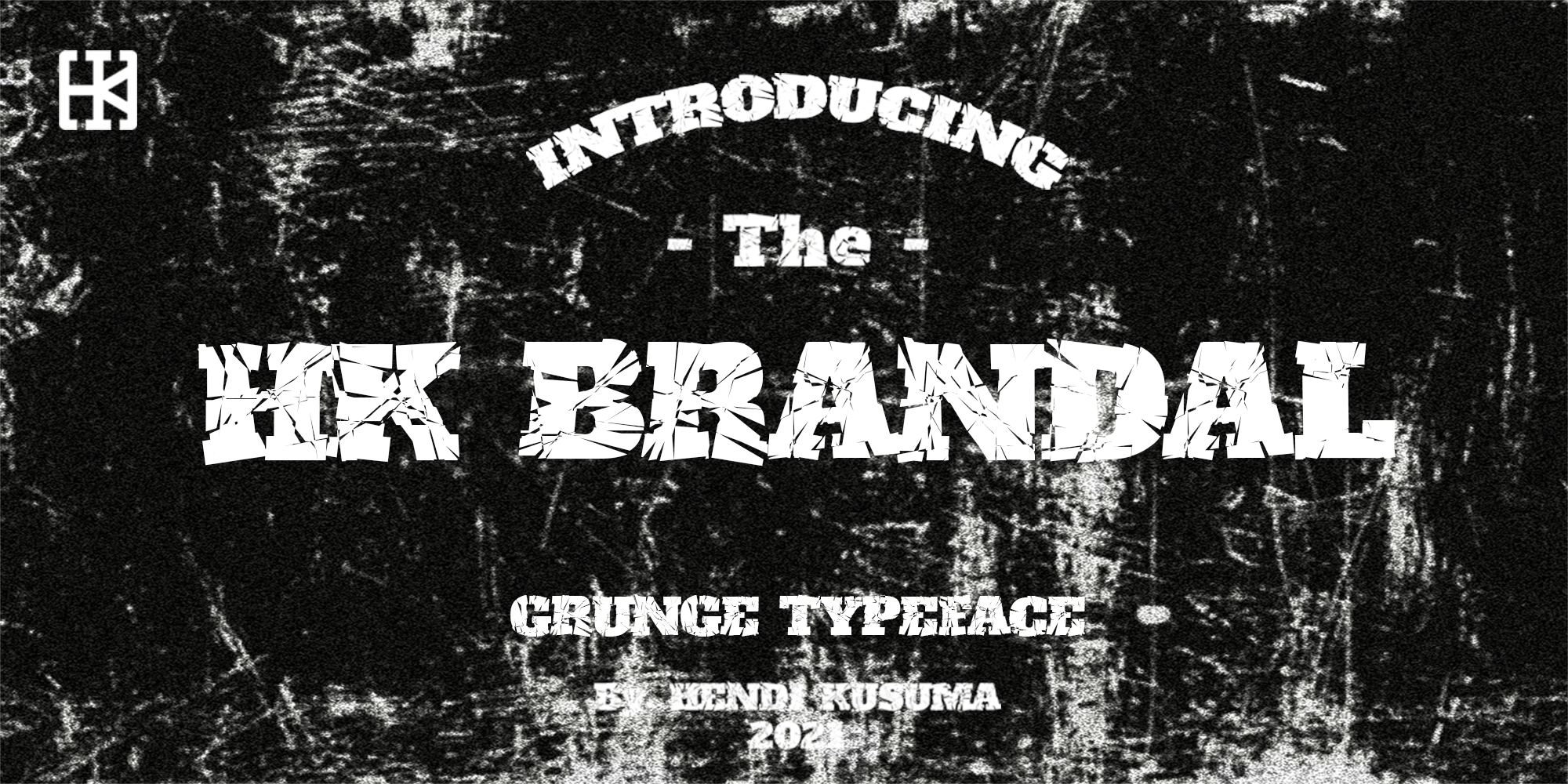
HK Brandal Font is perfect for edgy streetwear brands, rebellious music labels, underground skate shops, alternative tattoo studios, provocative art galleries, nonconformist youth magazines, and defiant lifestyle brands. This bold typeface embodies rebellious spirit and provocative attitude, bringing confrontational energy and unapologetic edge to any design project celebrating youth rebellion and anti-establishment culture.
What makes HK Brandal Font exciting is its fierce combination of rebellious attitude and street credibility that perfectly captures the essence of youth defiance and provocative cultural expression. The font features aggressive letterforms with sharp angles and confrontational character details that evoke both graffiti vandalism and rebellious street art culture. Its unapologetic character attracts alternative audiences while maintaining excellent readability for both underground publications and rebellious brand communications.
The HK Brandal Font family includes regular and bold weights with complementary distressed variations and rebellious ornamental elements. The character set features provocative ligatures, underground symbols, defiant alternates, and anti-establishment decorative accents that enhance the font's rebellious appeal. Extended character support includes street culture symbols and youth rebellion icons for authentic underground and alternative culture applications.
Whether you're designing rebellious youth brands, creating underground culture materials, or developing provocative lifestyle content, HK Brandal Font Free Download provides exceptional edge and versatility. This confrontational typeface transforms ordinary text into powerful rebellious statements that challenge authority while establishing credible recognition in competitive alternative culture and youth rebellion marketplaces.